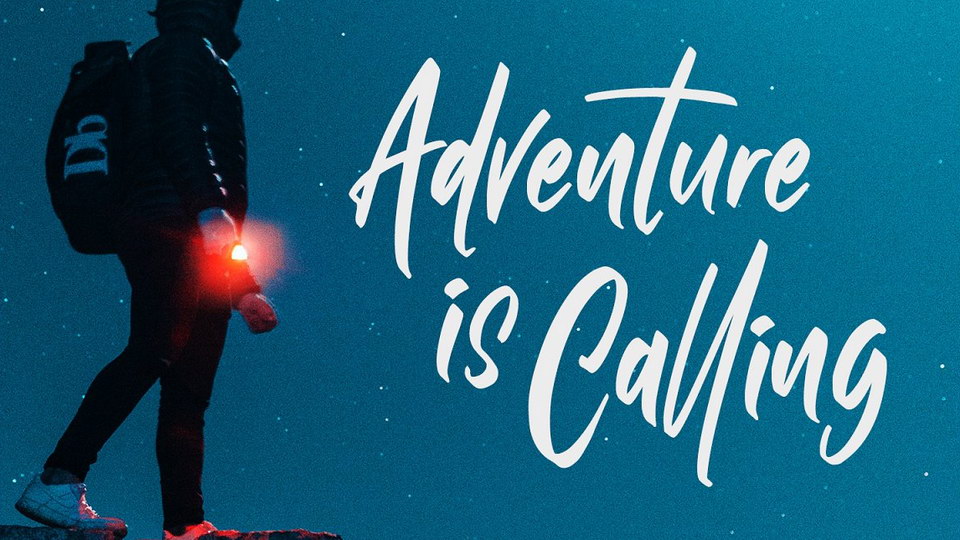
Rolling Back is a casual hand lettered font with energetic look. It includes accents, beautiful ligatures, numerals and punctuation.
Rolling Back font is suitable for any design like branding, quotes, t-shirt printing and etc.